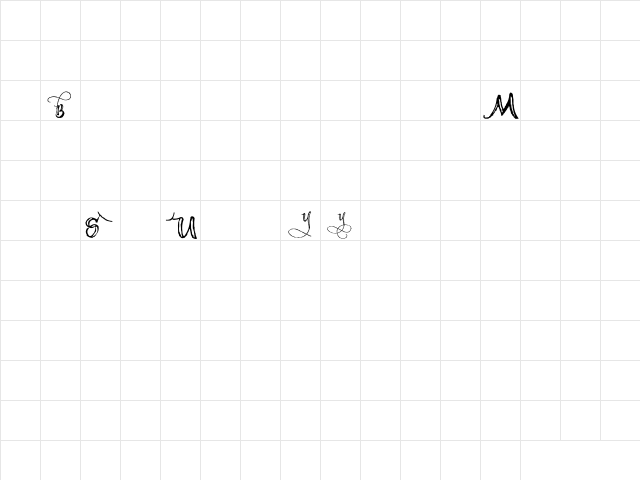
AEZ scripty 2 Font Preview
| Designer | Anastacia E. Zittel |
Design Context for AEZ scripty 2 Typeface
AEZ scripty 2 brings a calligraphic fluidity to the page — its connecting strokes and expressive curves give it an unmistakably human quality.
Font Pairing: Combine AEZ scripty 2 with a simple geometric sans for maximum contrast — the tension between flowing curves and clean structure is a classic typographic pairing.
Pro Tip: Use AEZ scripty 2 for short runs of text — names, titles, or taglines. Extended body copy in script faces tires the eye quickly.